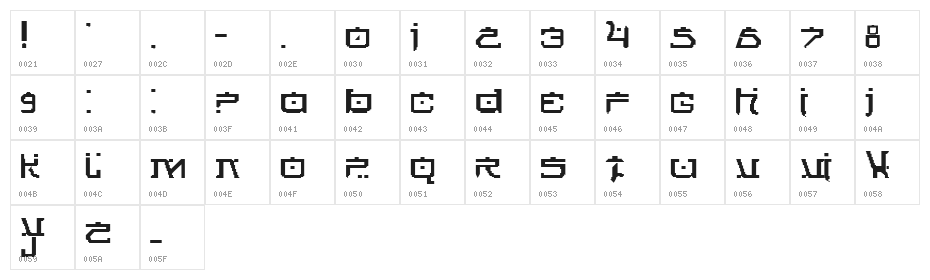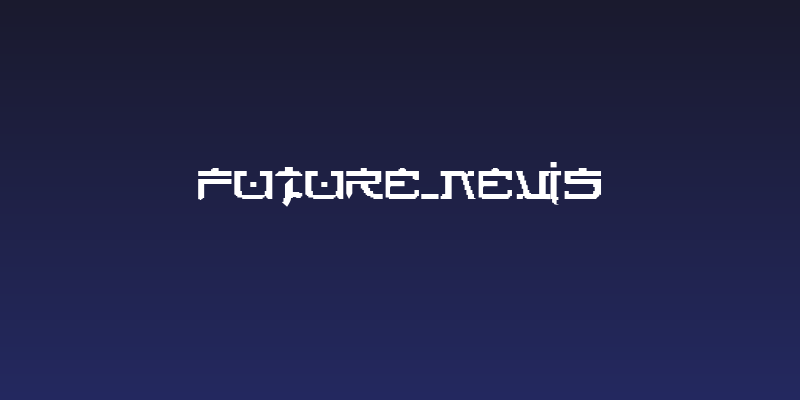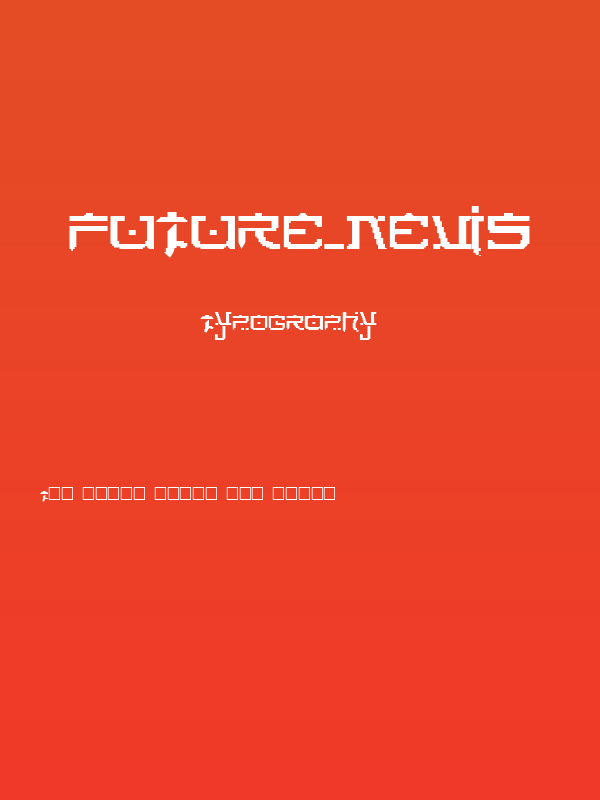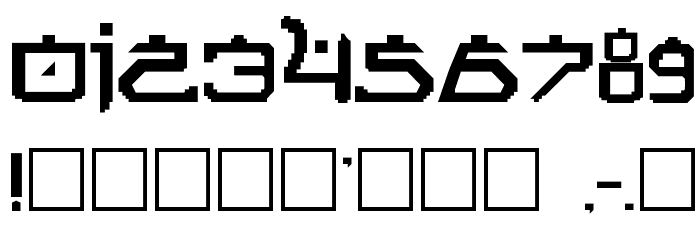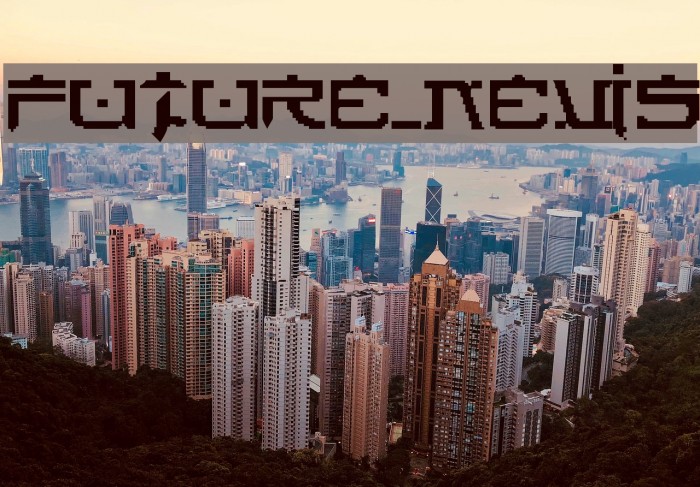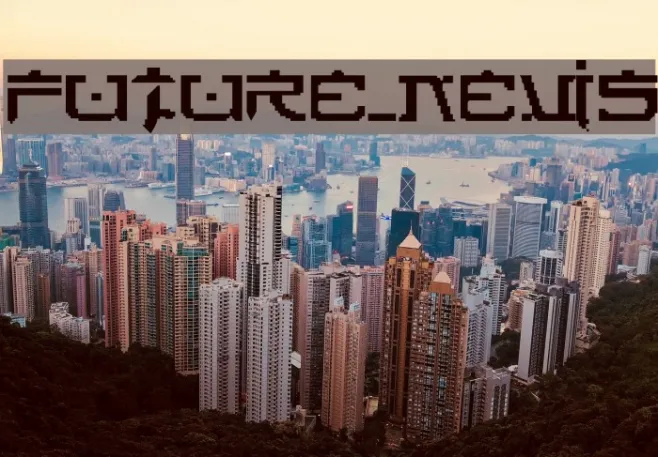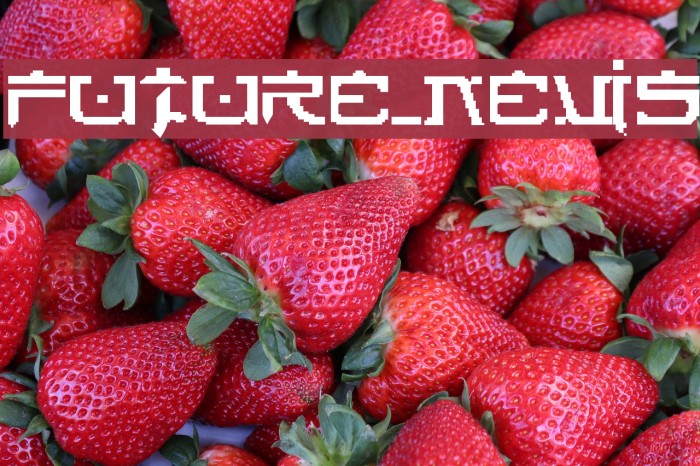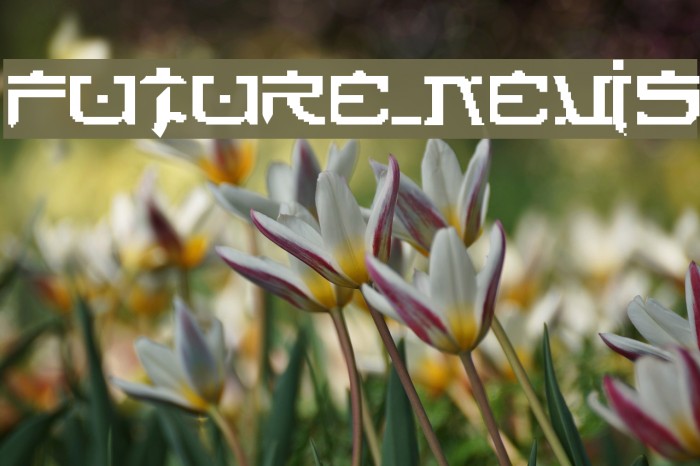
FUTURE_NEWS Font
FUTURE_NEWS Description
This font features a futuristic and digital aesthetic, characterized by its geometric and angular shapes. The letters are constructed with a pixelated, block-like appearance, giving it a distinctly modern and technological feel. The uppercase and lowercase letters maintain a consistent style, with sharp edges and a uniform thickness that suggests a digital or sci-fi theme. The numerals follow the same design principles, ensuring a cohesive look across all characters. The special characters are also designed to match the overall style, making this font suitable for projects that require a contemporary and innovative touch.
| Proposed Projects | Ideal for tech-related branding, video game design, futuristic posters, and digital media. |